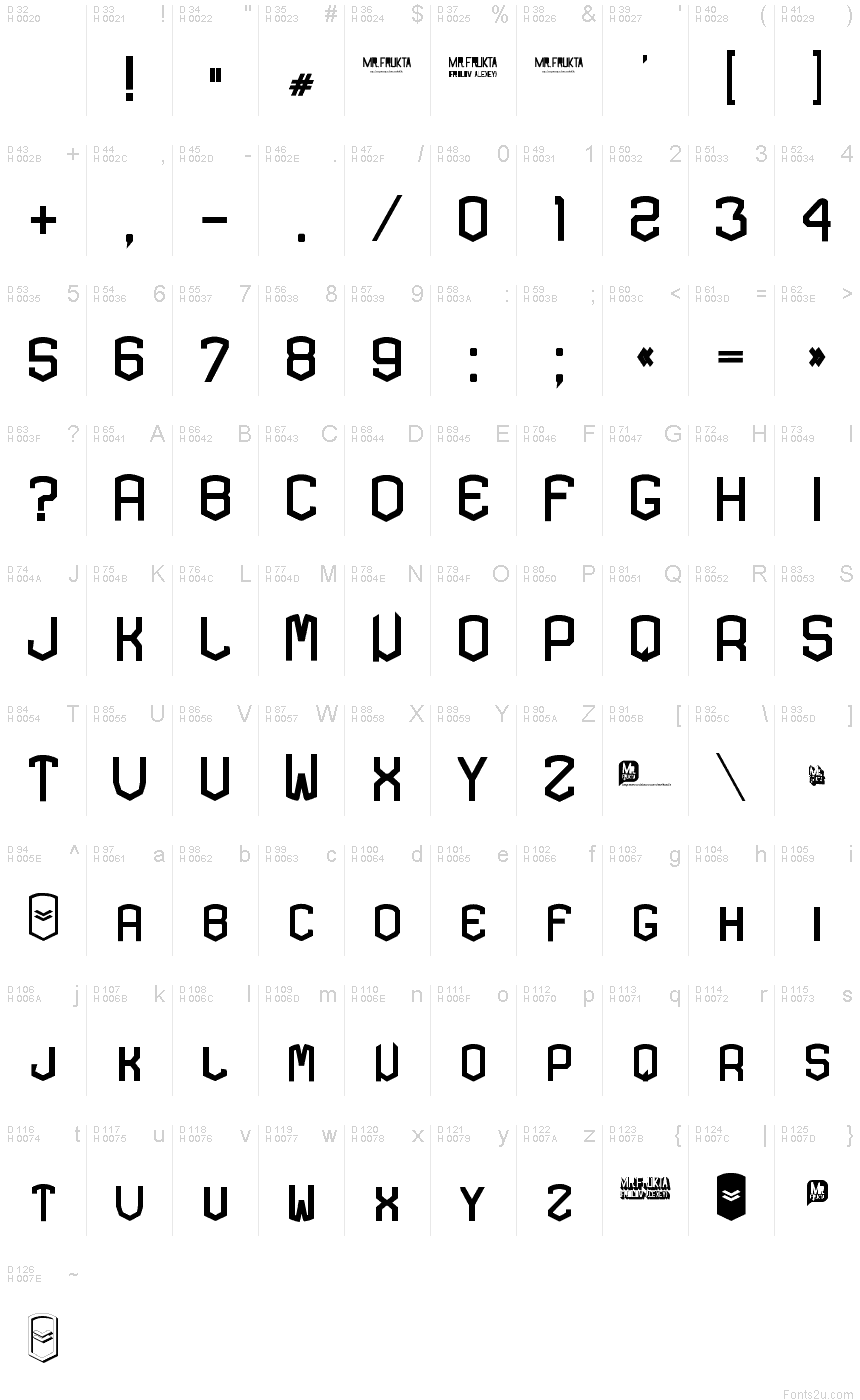
Kardonextra Bold by Mr. Frukta, also known as Frolov Alexey, is a free futuristic display font built from tall, solid letterforms, broad vertical strokes, and sharply cut geometric joints. Its clipped corners and narrow breaks resemble lettering machined from metal panels.
A gaming studio or electronics brand could use it for a logo, product packaging, event posters, and merchandise, since the squared construction suggests hardware, armor, rugged industrial interfaces, and military vehicle panels. Across those settings, the cutaway joints can become part of a product identity, echoing control panels, vehicle badges, or science-fiction props instead of acting as ordinary text.